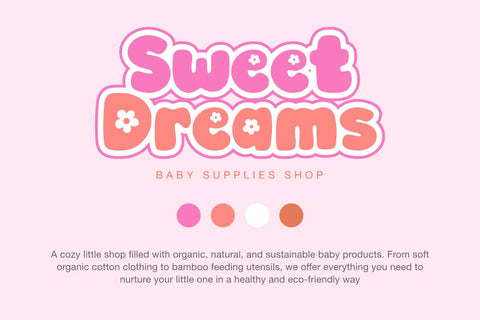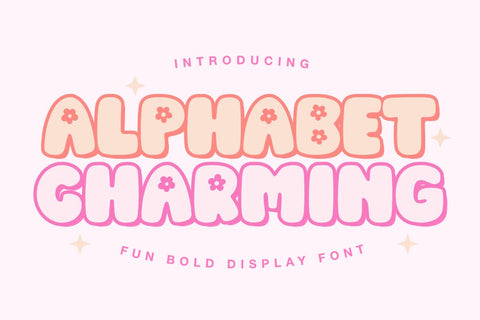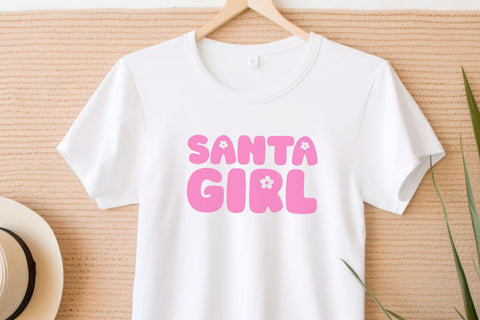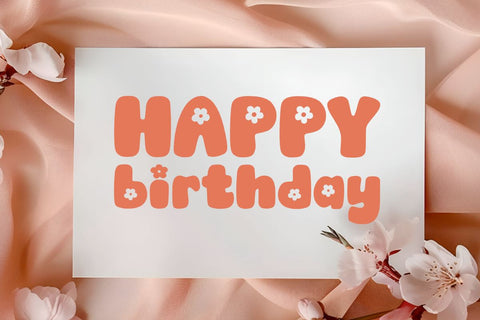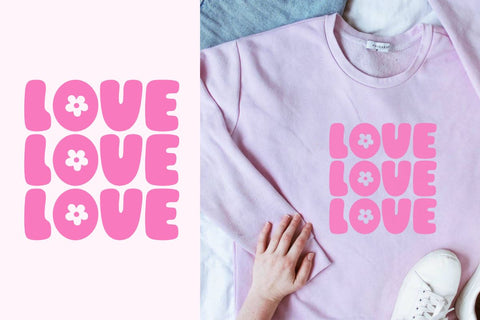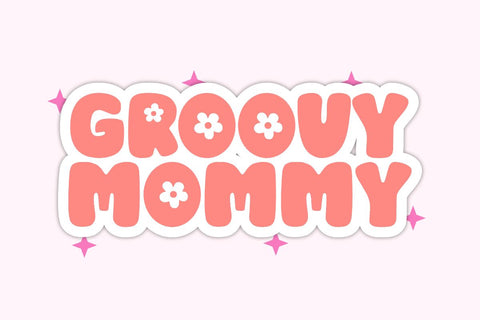
Alphabet Charming - Fun Bold Display Font
Step into the world of joyous creativity with Alphabet Charming, a lively display font teeming with vitality and spirit. Its adaptable design effortlessly shifts, making it the go-to font for a variety of celebrations like Christmas, Valentine's Day, Summer sundries, Easter revelry, cozy Autumn days and the heart-warming vibe of Thanksgiving. Alphabet Charming is more than just a collection of letters and symbols; it is a source of artistic inspiration. This show-stopping font helps define your brand's identity, resonating with home decor lovers by creating entrancing wall art, or seizing attention on printed collateral, garments, and appealing accessories such as t-shirts, tote bags, or keychains. Inject life into your journaling, planning, and note-taking with this characterful font. Its compatibility with crafting platforms makes it a preferred font for Cricut and Silhouette enthusiasts. Unleash your creativity on a multitude of projects including crafts, sublimation techniques, stickers, laser works, and SVG file creation. Alphabet Charming infuses each project with a burst of innovation, transforming your concepts into visually pleasing masterpieces.